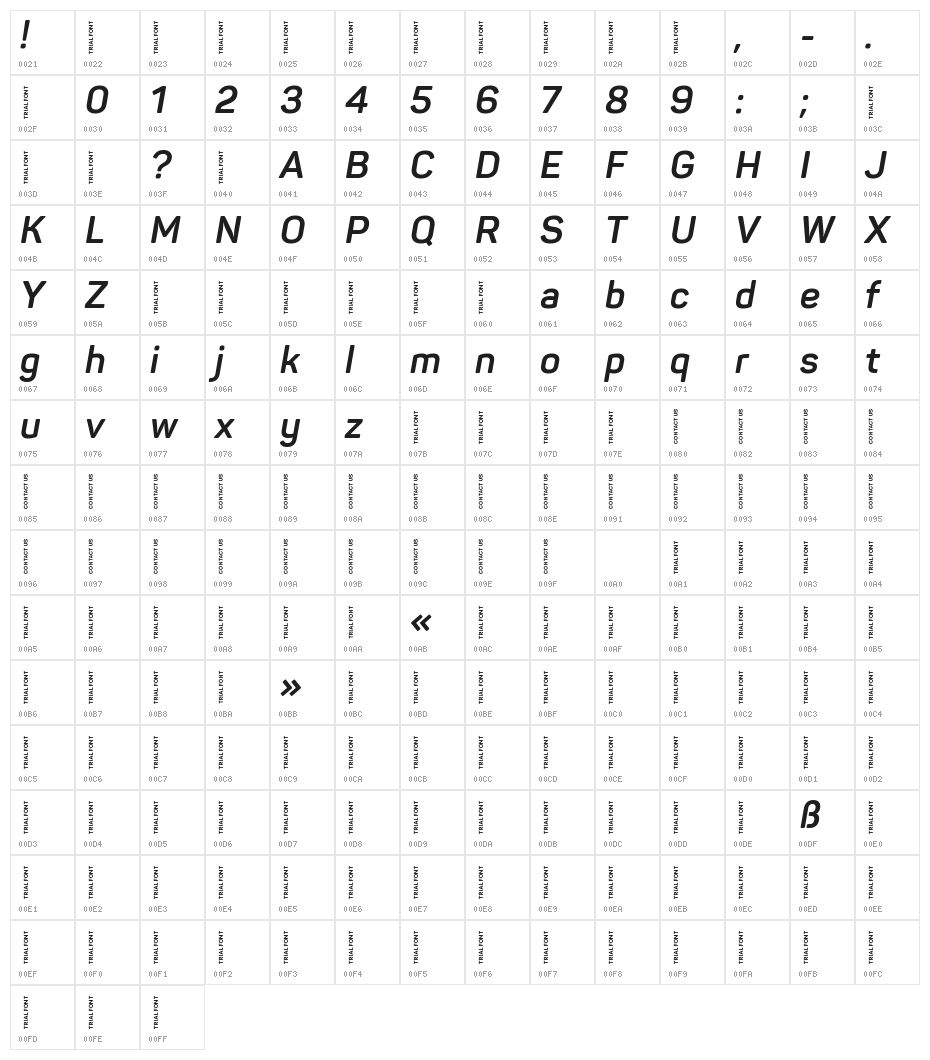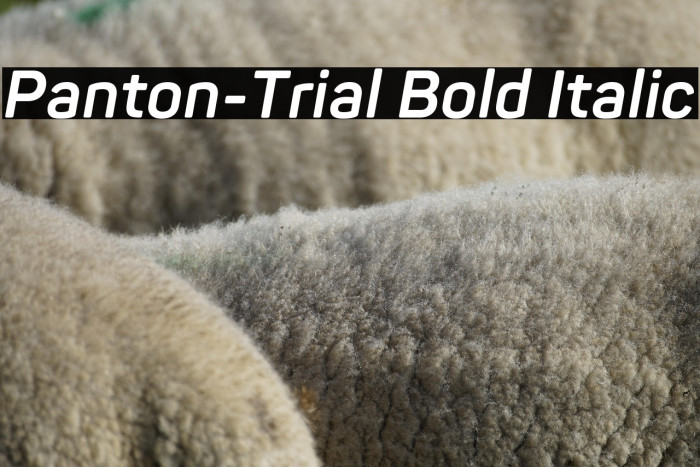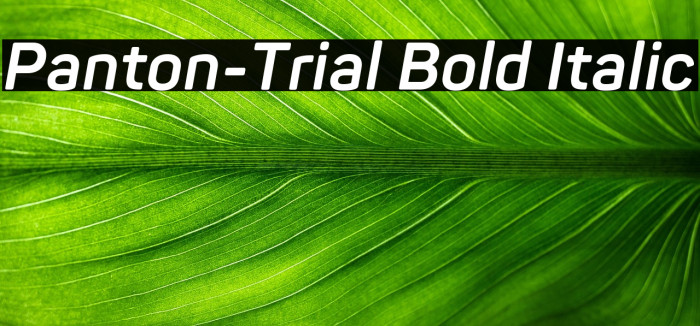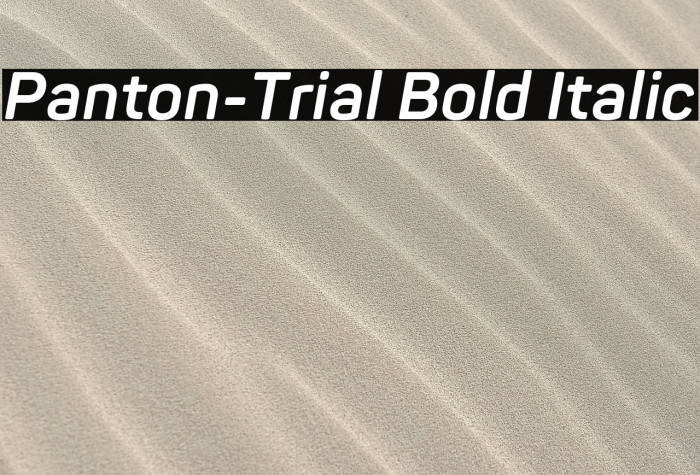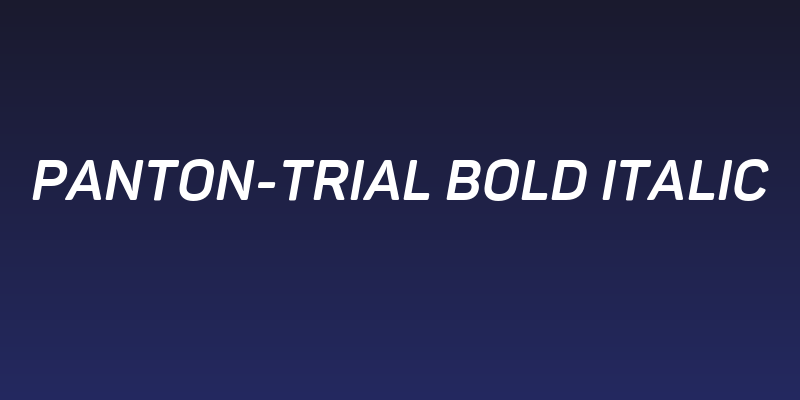
Panton-Trial Bold Italic Font
Panton-Trial Bold Italic Description
This font features a bold and italic style, characterized by its smooth curves and modern aesthetic. The letters are slightly slanted, giving a dynamic and forward-moving appearance. The strokes are consistent in thickness, providing a clean and uniform look. The font maintains a balanced proportion between the height and width of the characters, ensuring readability and versatility. The numbers and special characters are designed to match the overall style, with a sleek and contemporary feel. This font is suitable for projects that require a modern and professional touch.
| Use Case | Headlines, Logos, Digital Media |
| Proposed Projects | Ideal for branding, advertising, digital media, and editorial design. |